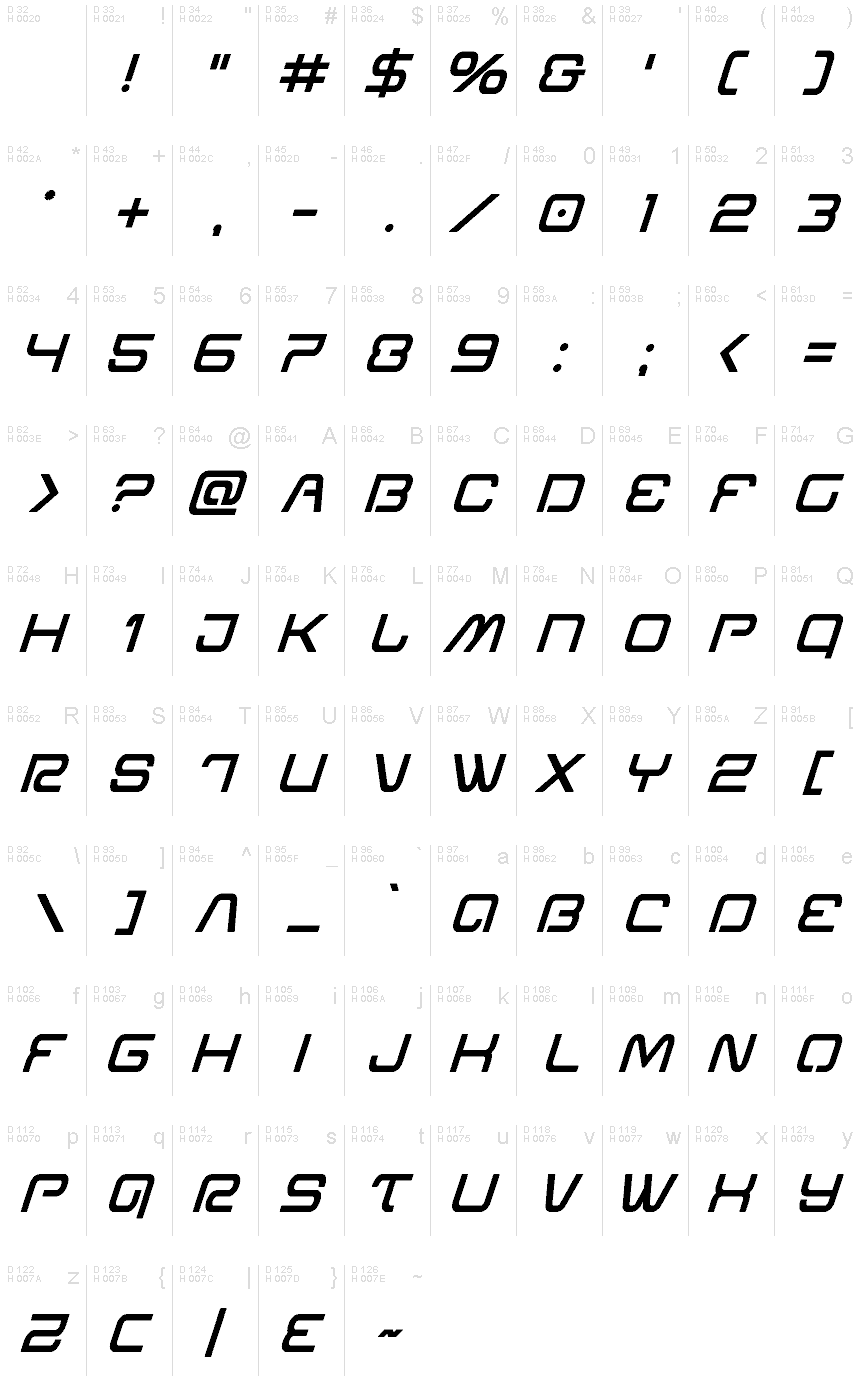
Miracle Mercury Semi-Bold Ital
Miracle Mercury Semi-Bold Italic font by Iconian Fonts is an expanded futuristic display font with geometric and modernist influences. The technical vibe of the font stems from its angular shapes and sleek look which gives out an atmosphere of precision in any project. Its visual presence, made prominent with its weight, contributes to a more versatile use aimed at high-impact projects.
Use Miracle Mercury Semi-Bold Italic for designing logos, product packaging, advertisements, posters, book covers & interiors, or titles for movies & animation films. The free display font also works perfectly when used in web design elements or mobile applications as well as in branding efforts for forward-thinking companies.